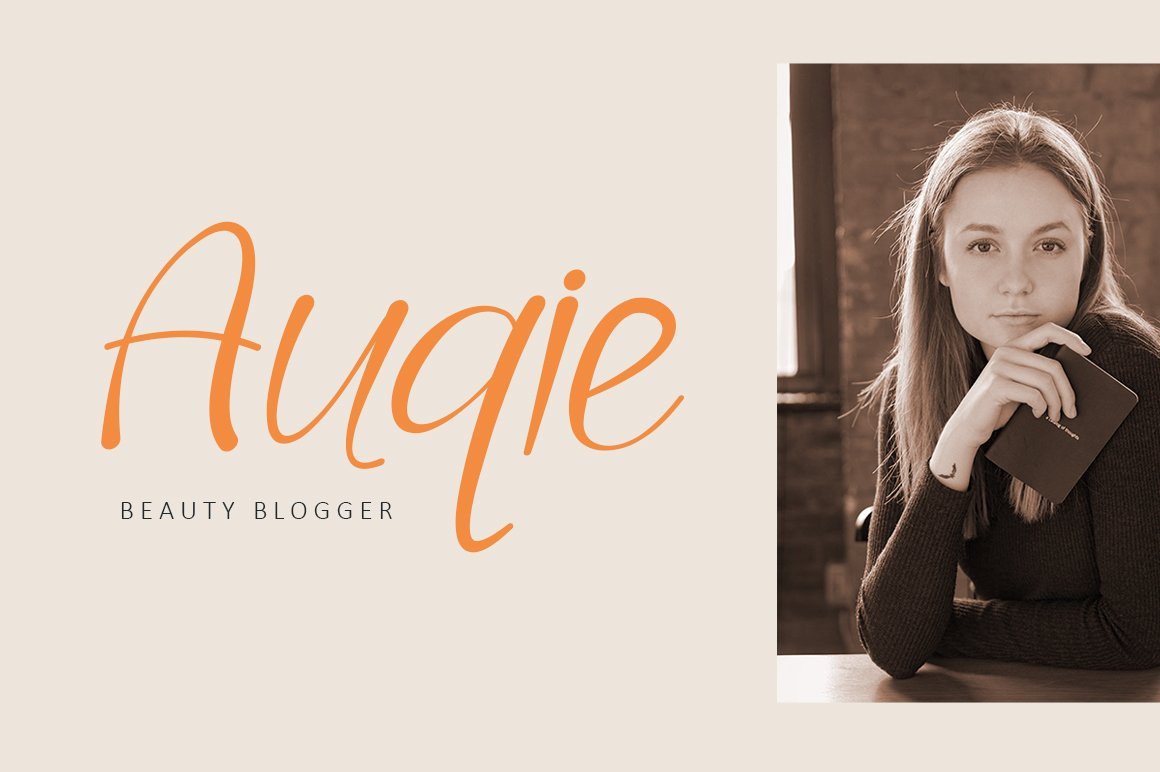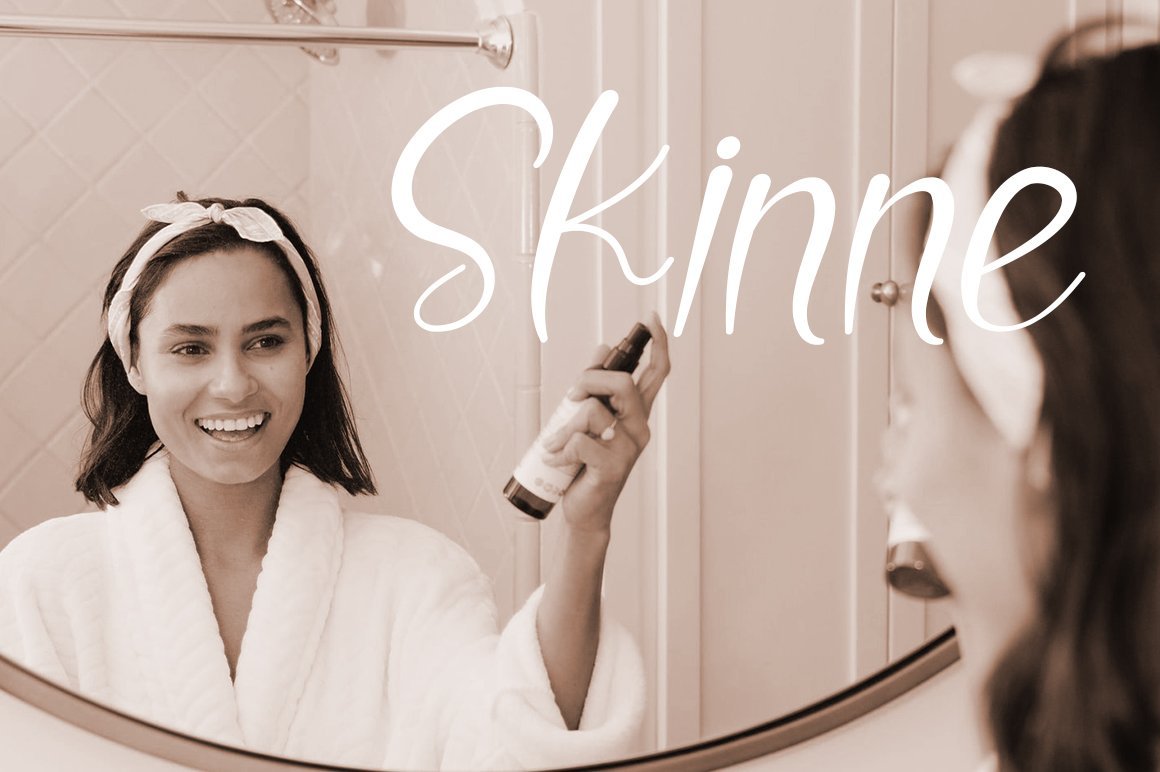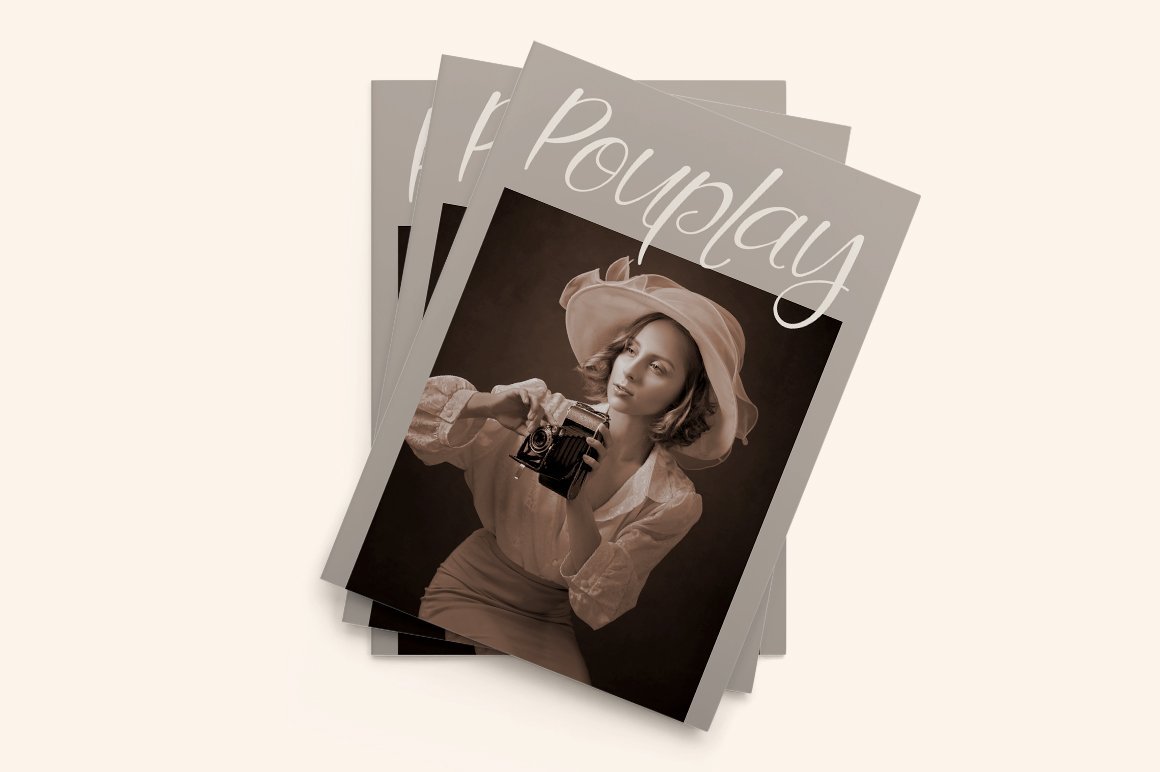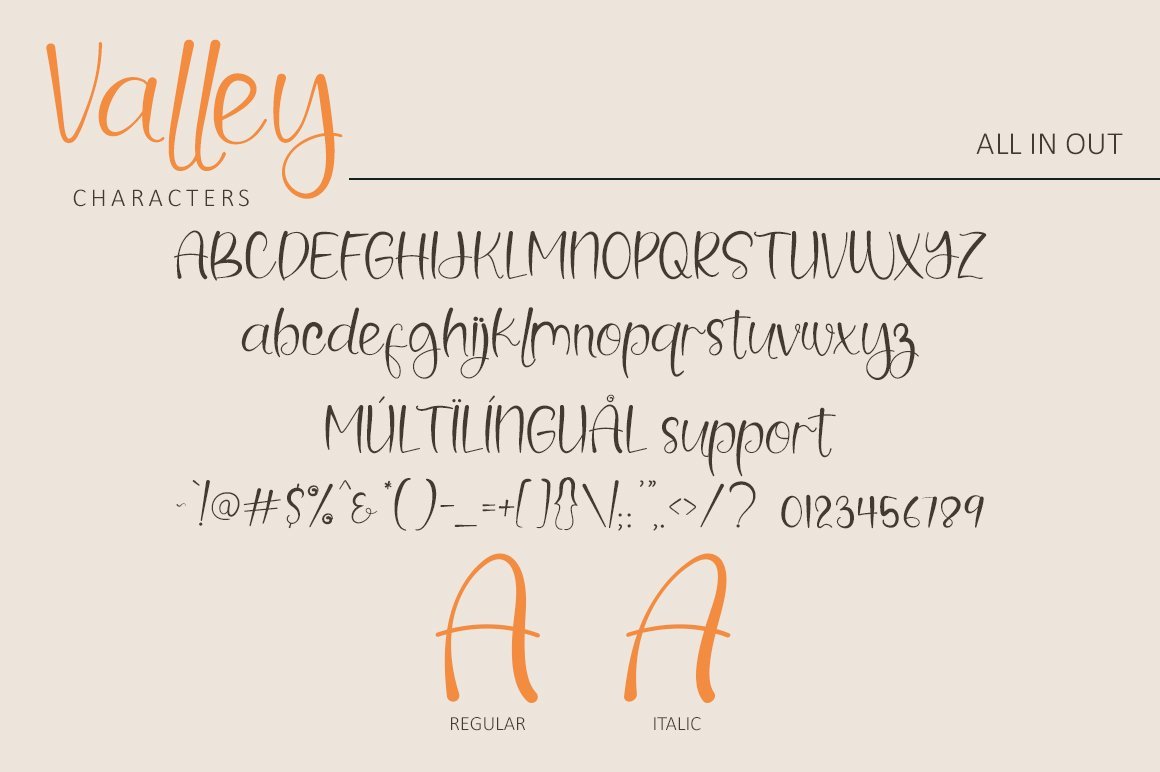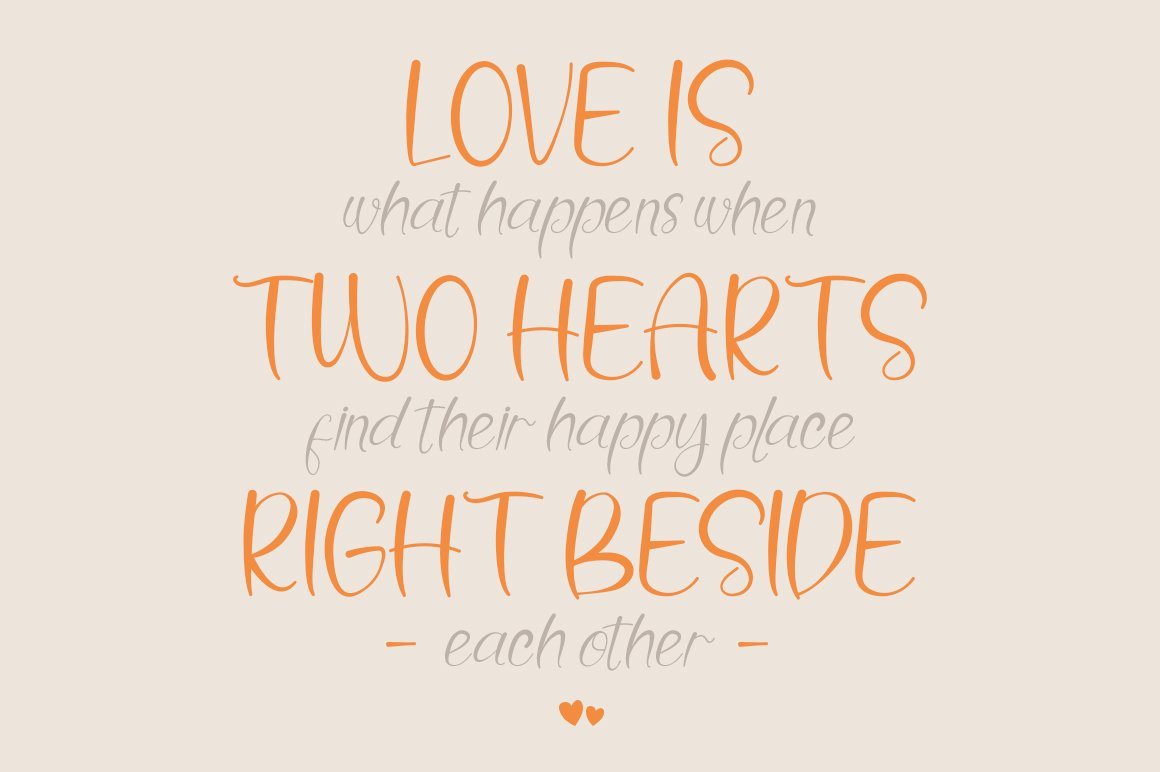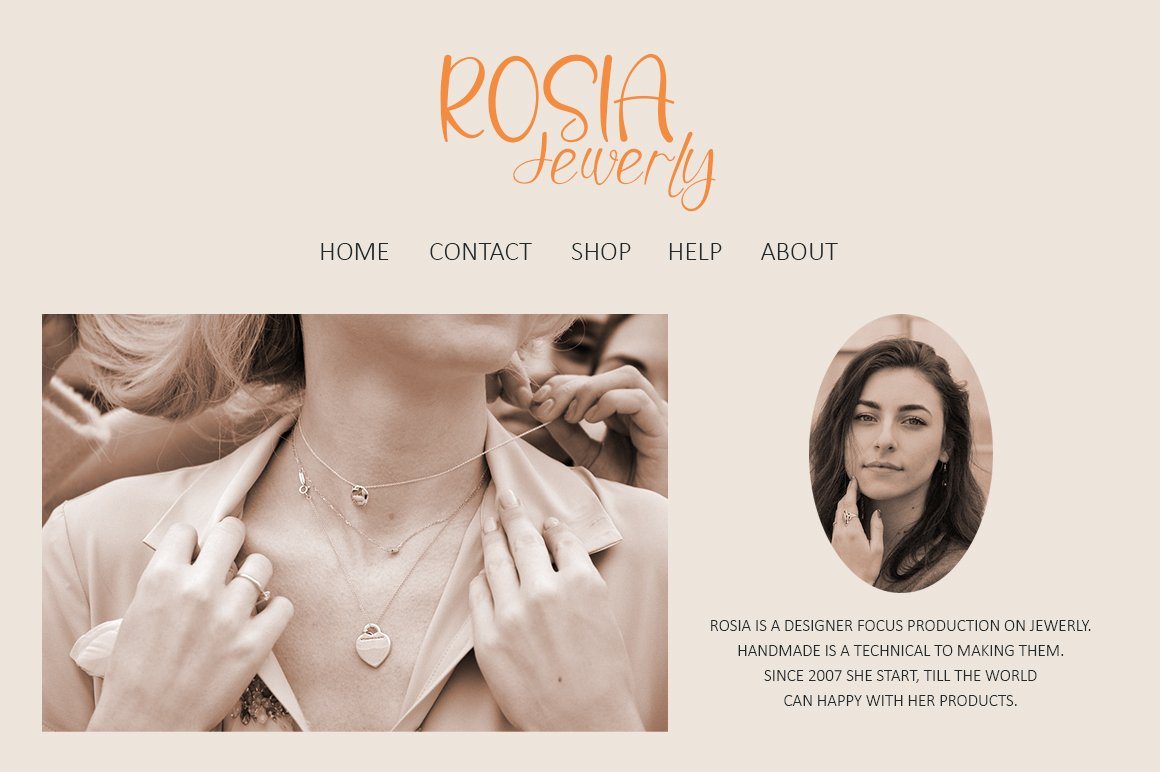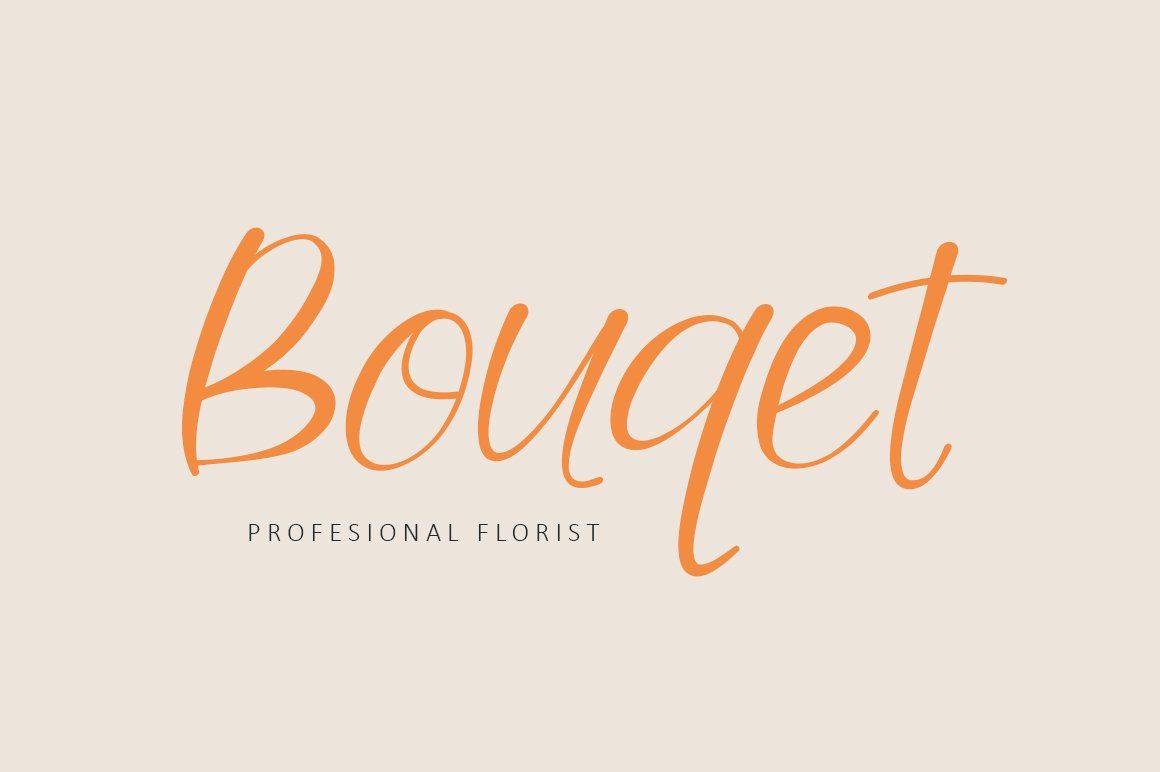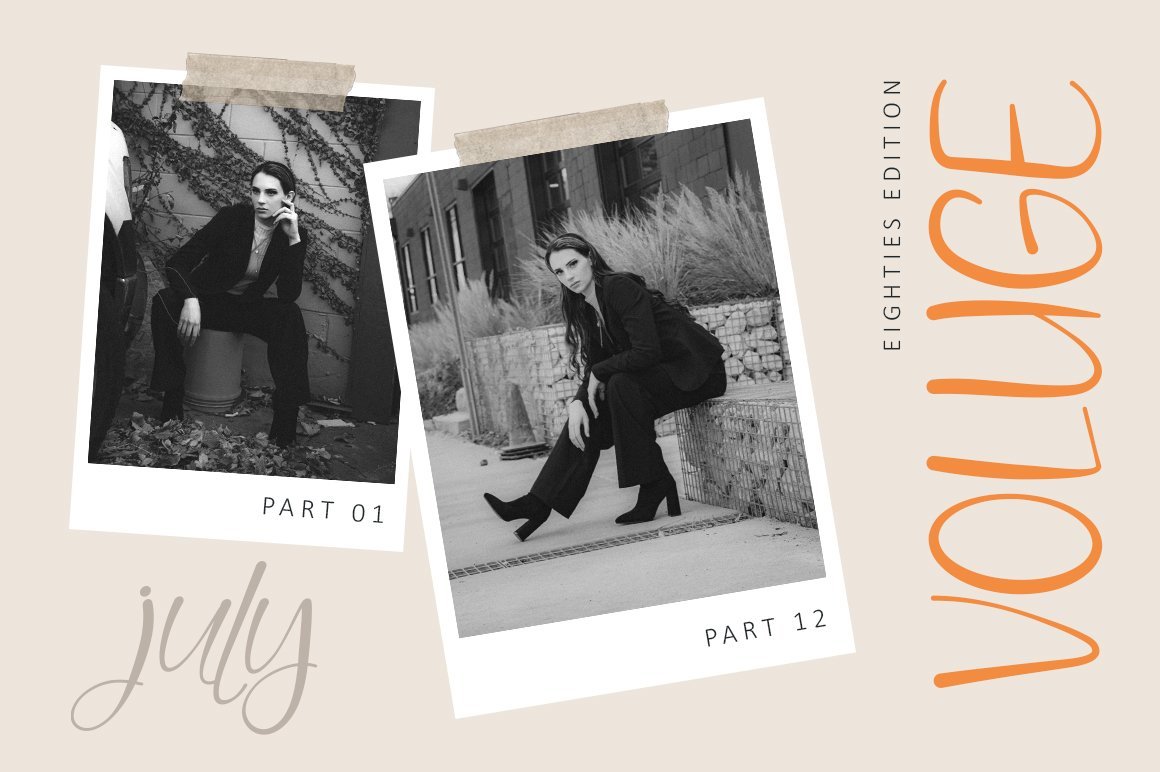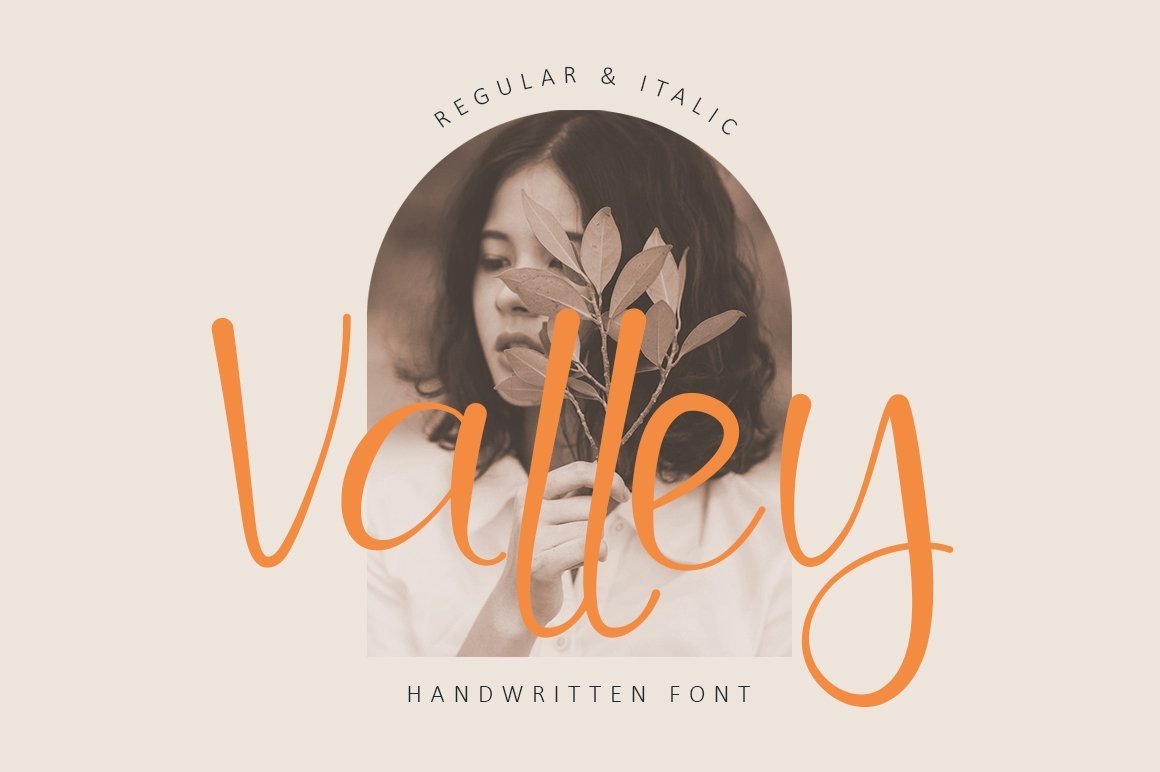
Valley – Beauty Handwritten Font
About Valley – Beauty Handwritten Font
Hello, Valley is a lovely script font featuring charming, playful characters that seem to dance along the baseline. Add this font to your most creative ideas, and notice how it makes them stand out! Have a Regular & Italic style can be used various purposes such as magazine, logos, wedding invitations, headings, and so much more. What you get : Valley Regular & Italic on OTF and WOFF File. If you have any question, don’t hesitate to contact me. Happy Designing !!! Thank You, Bayu Suwirya